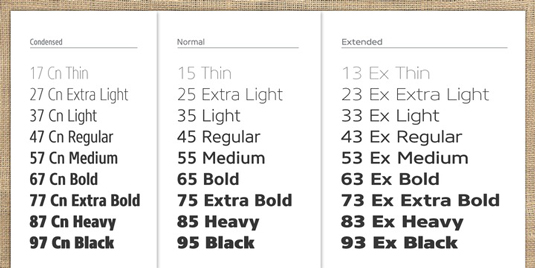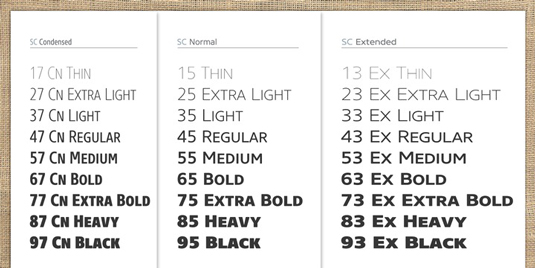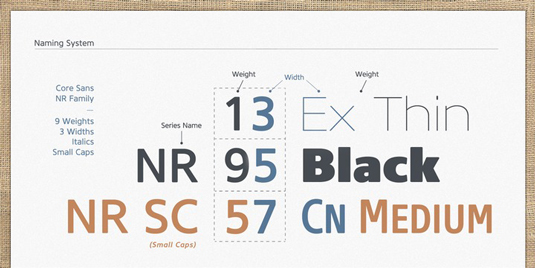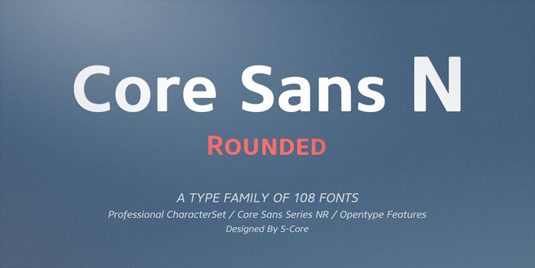
Font of the day: Core Sans NR
Core Sans NR by Hyun-Seung Lee, Dae-Hoon Hahm, and Min-Joo Ham
Part of the Core Sans N family, Core Sans NR is the rounded version. Available from MyFonts, the letters in Core Sans NR are described as being designed with 'genuine neo-grotesque and neutral shapes without any decorative distractions. The spaces between individual letter forms are precisely adjusted to create the perfect typesetting'.